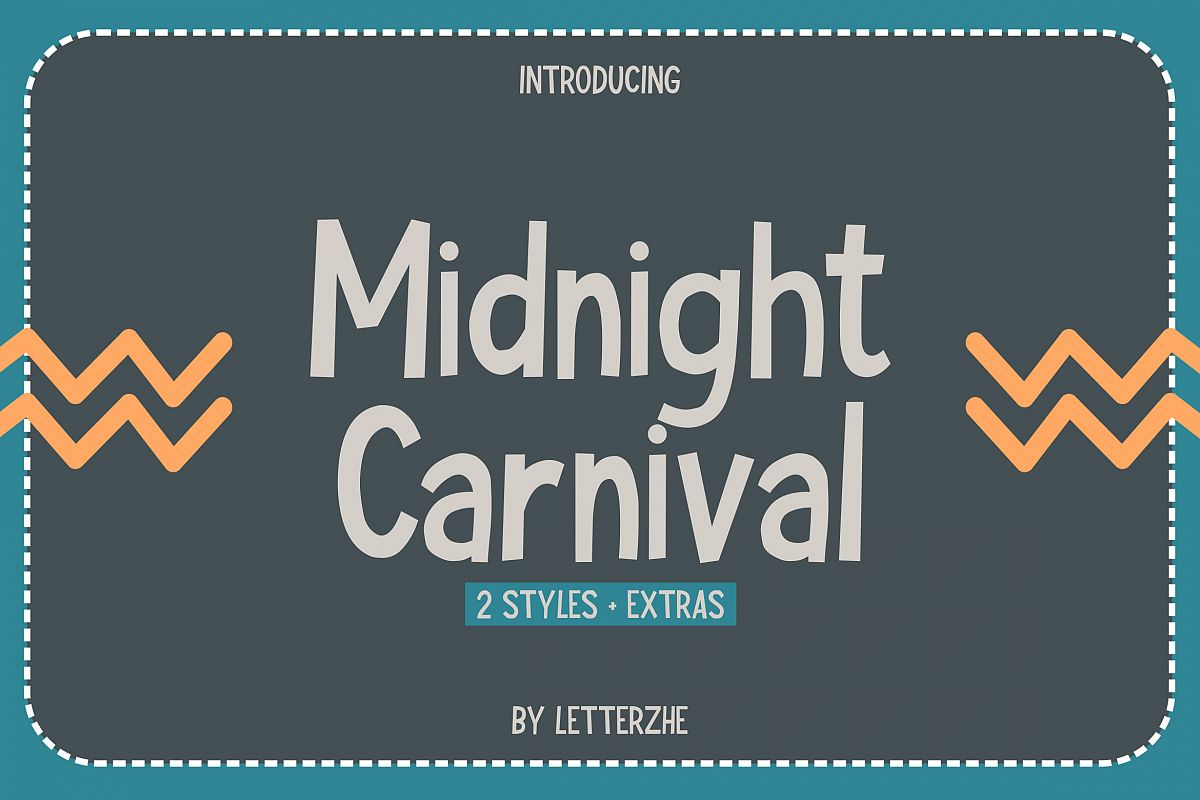
Created By Letterzhe
Midnight Carnival
Midnight Carnival is a typeface perfect for any fun quirky design work! This font can be used for anything such as t-shirt designs, phone cases, greeting cards, invitations, mugs and so much more! It’s completed with International languages Get creative!